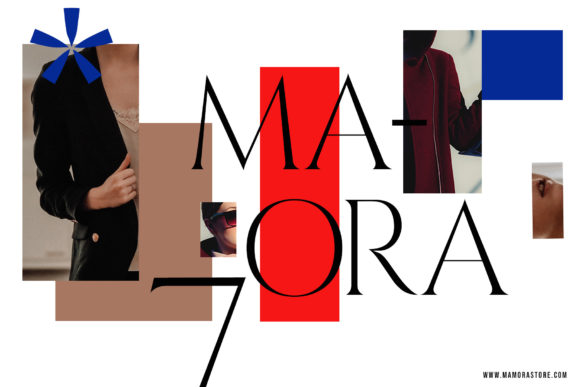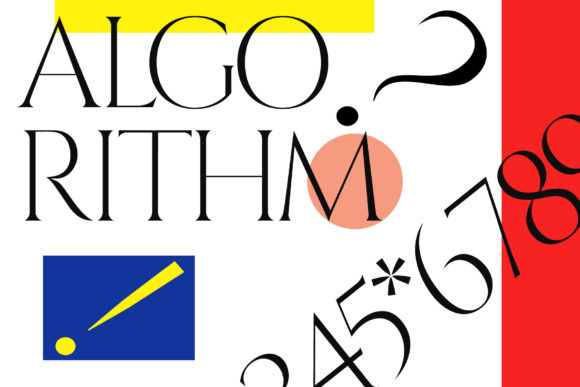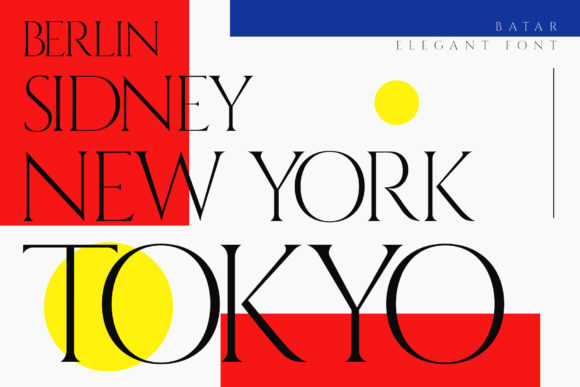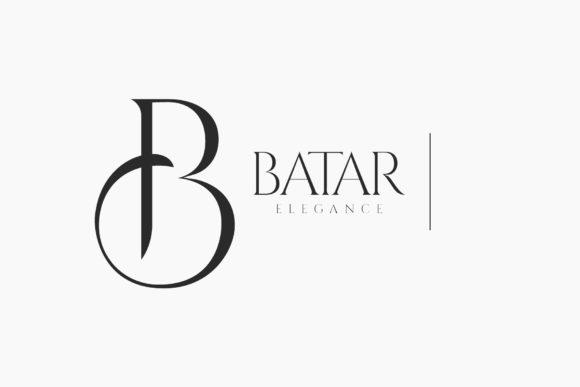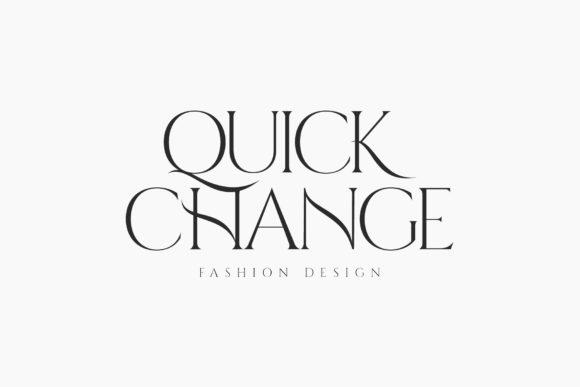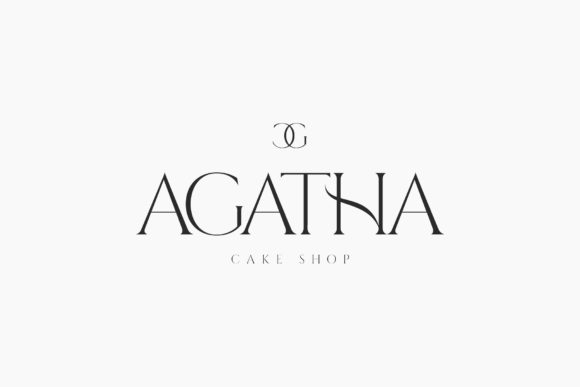
Introduction to Batar Font
Have you ever stared at a blank canvas, waiting for inspiration to strike? That’s exactly where I was when I stumbled upon the Batar Font. Its sleek and modern design instantly caught my eye, and I knew I had to incorporate it into my next creative project. Whether you’re a seasoned designer or just starting out, finding the right font can make all the difference in elevating your work from good to great.
As a design enthusiast, I’ve always been on the lookout for high-quality fonts that can add a touch of sophistication to my projects. That’s why I’m excited to share with you the Batar Font, a versatile and modern serif font that’s perfect for branding, product packaging, and more. With its clean lines and transparent background, this font is a valuable resource for any designer looking to add a professional touch to their work.
Key Features of Batar Font
- High-quality, unique design for creative projects, making it a valuable design resource.
- Comes in a single weight, ideal for those looking for a clean and simple font for their design projects.
- Perfect for designers working on a variety of creative projects, from branding and advertising to digital media and publishing.
Honest Review: Batar Font
I recently stumbled upon the Batar Font, and I’m excited to share my honest thoughts on this design resource. As a designer, I’m always on the lookout for high-quality fonts that can elevate my creative projects.
- ✨ High-quality design: The Batar Font is well-crafted and features a sleek, modern aesthetic that’s perfect for a variety of design applications.
- ✨ Transparent background: The font’s transparent background makes it easy to use in design projects, especially when working with complex backgrounds.
However, I do have a few reservations about the Batar Font. While it’s a great design resource, it may not be suitable for all types of creative projects.
- ⚠️ Limited font styles: The Batar Font only comes in a few different styles, which may limit its versatility in certain design applications.
- ⚠️ Not ideal for body text: While the font is great for headlines and titles, it may not be the best choice for body text due to its bold, attention-grabbing nature.
Overall, I think the Batar Font is a solid design resource that’s worth considering for your next creative project. While it may have some limitations, its high-quality design and transparent background make it a valuable addition to any designer’s toolkit.
Getting the Most Out of Batar Font
To maximize the effectiveness of the Batar Font, use it for:
- Titles and headings
- Accent text
- Logos and branding